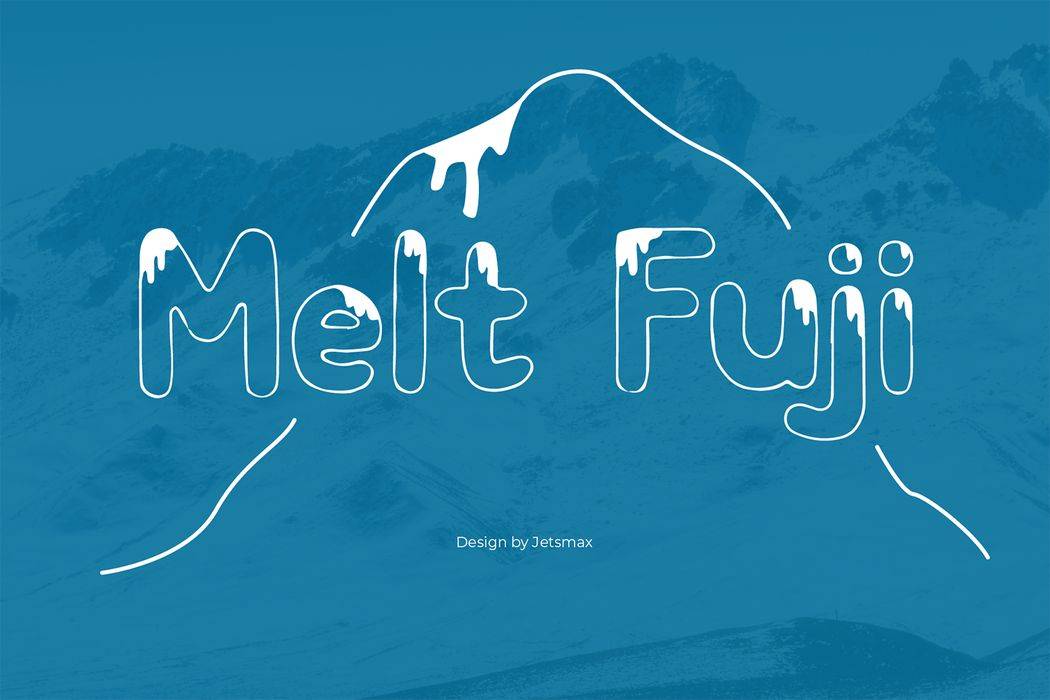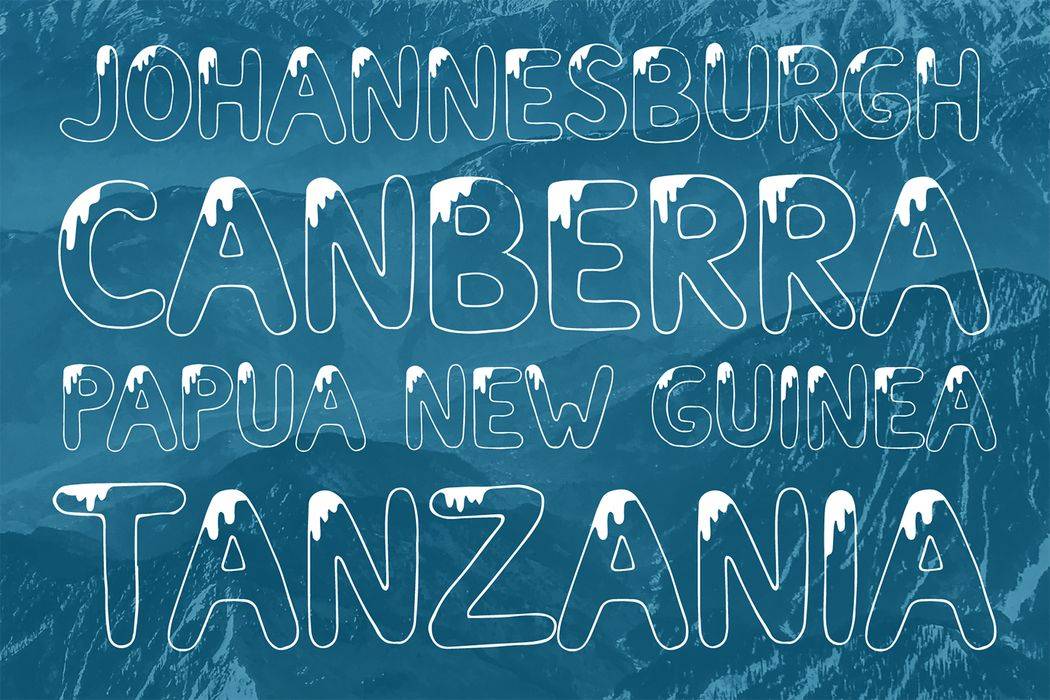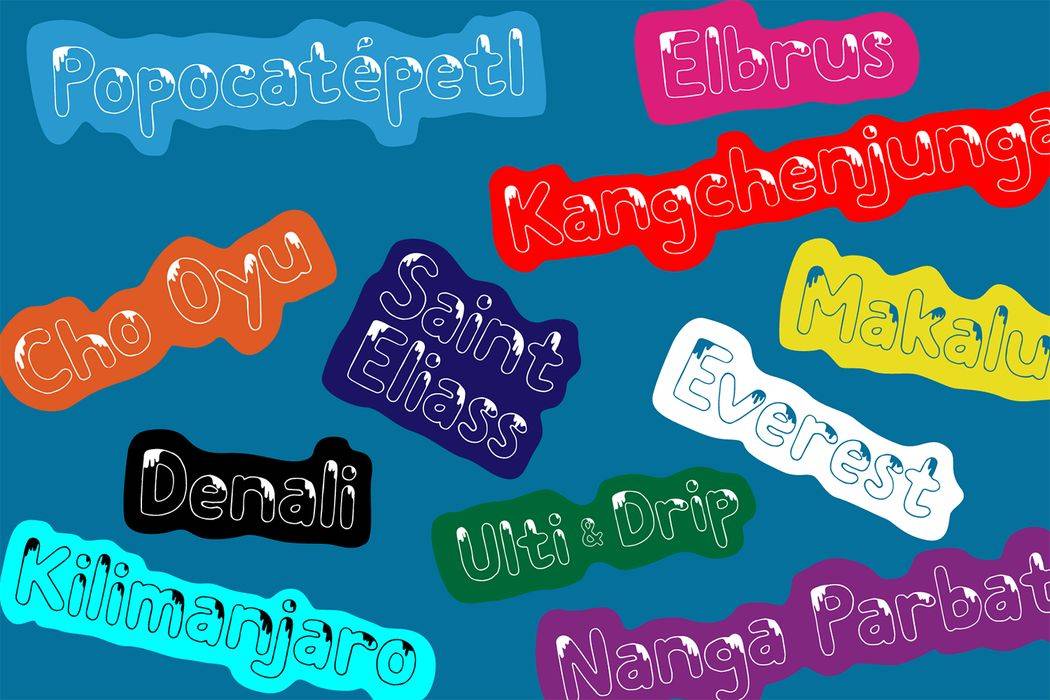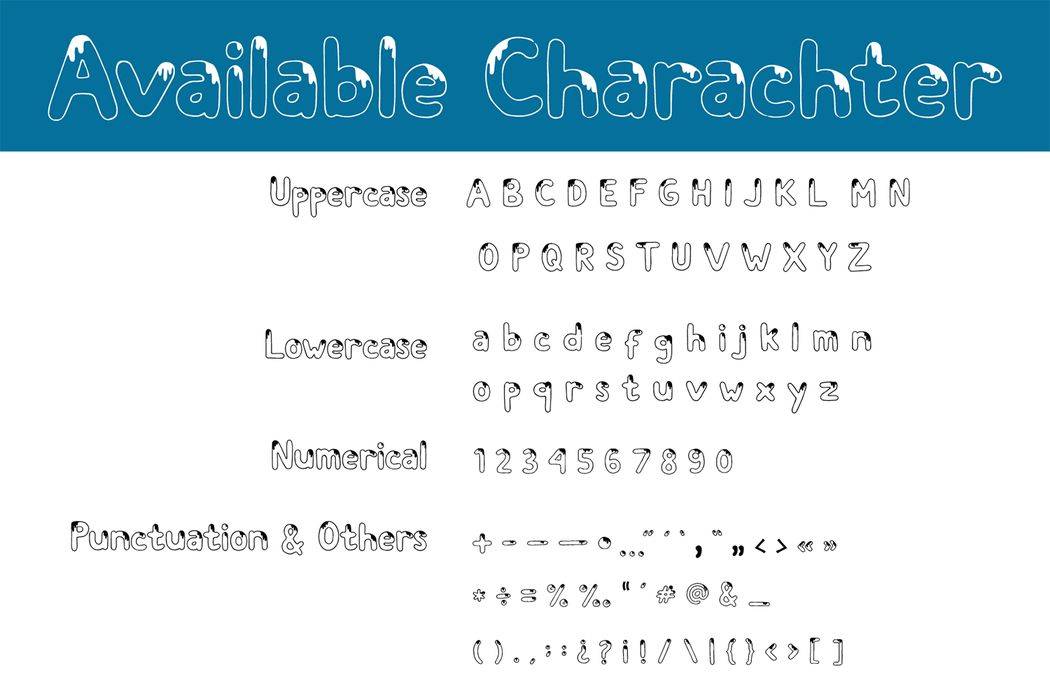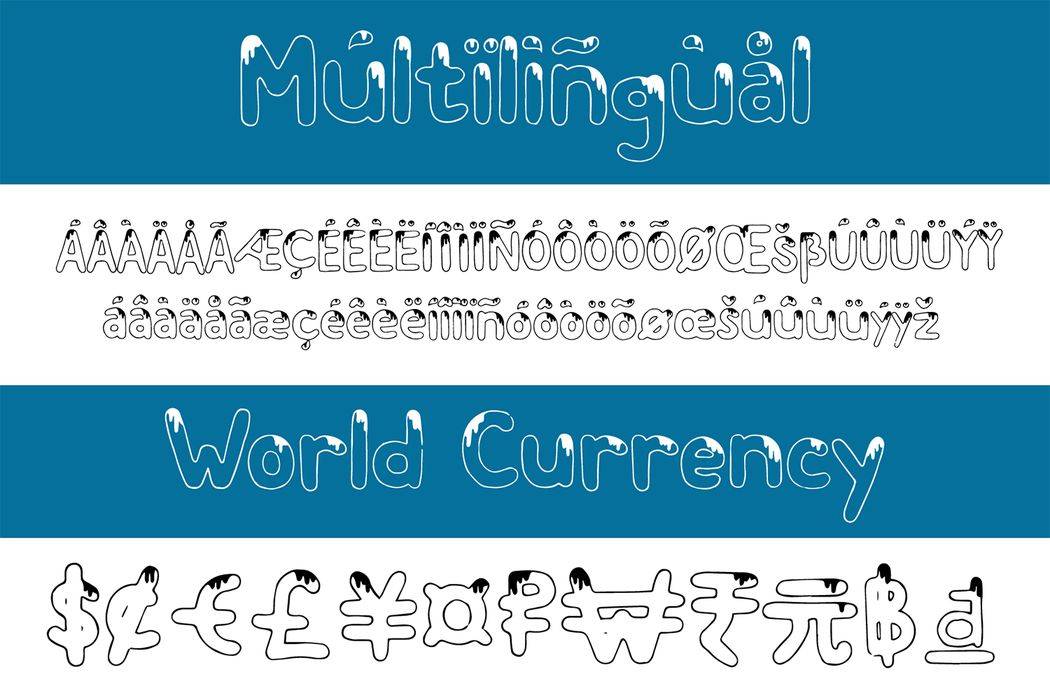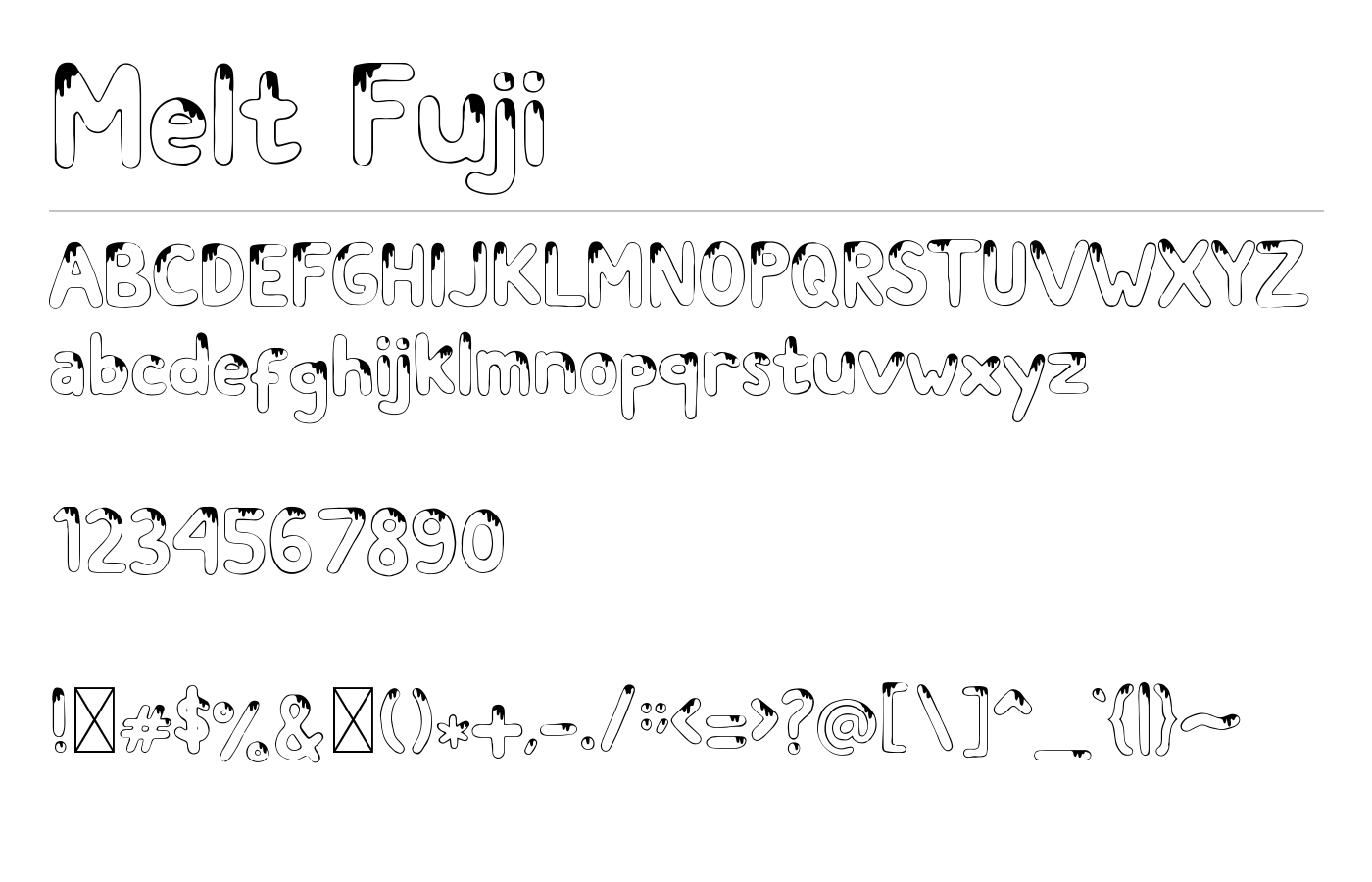
Melt Fuji is a playful, rounded sans serif font featuring a unique melting drip effect on each character, giving it a fun and quirky personality. Its medium weight and friendly, slightly condensed shapes make it ideal for eye-catching headlines, creative branding, and informal designs that want to convey a lighthearted, artistic vibe. This font works especially well in projects that aim to stand out with a youthful and imaginative style.
Melt Fuji Font
About Melt Fuji Font